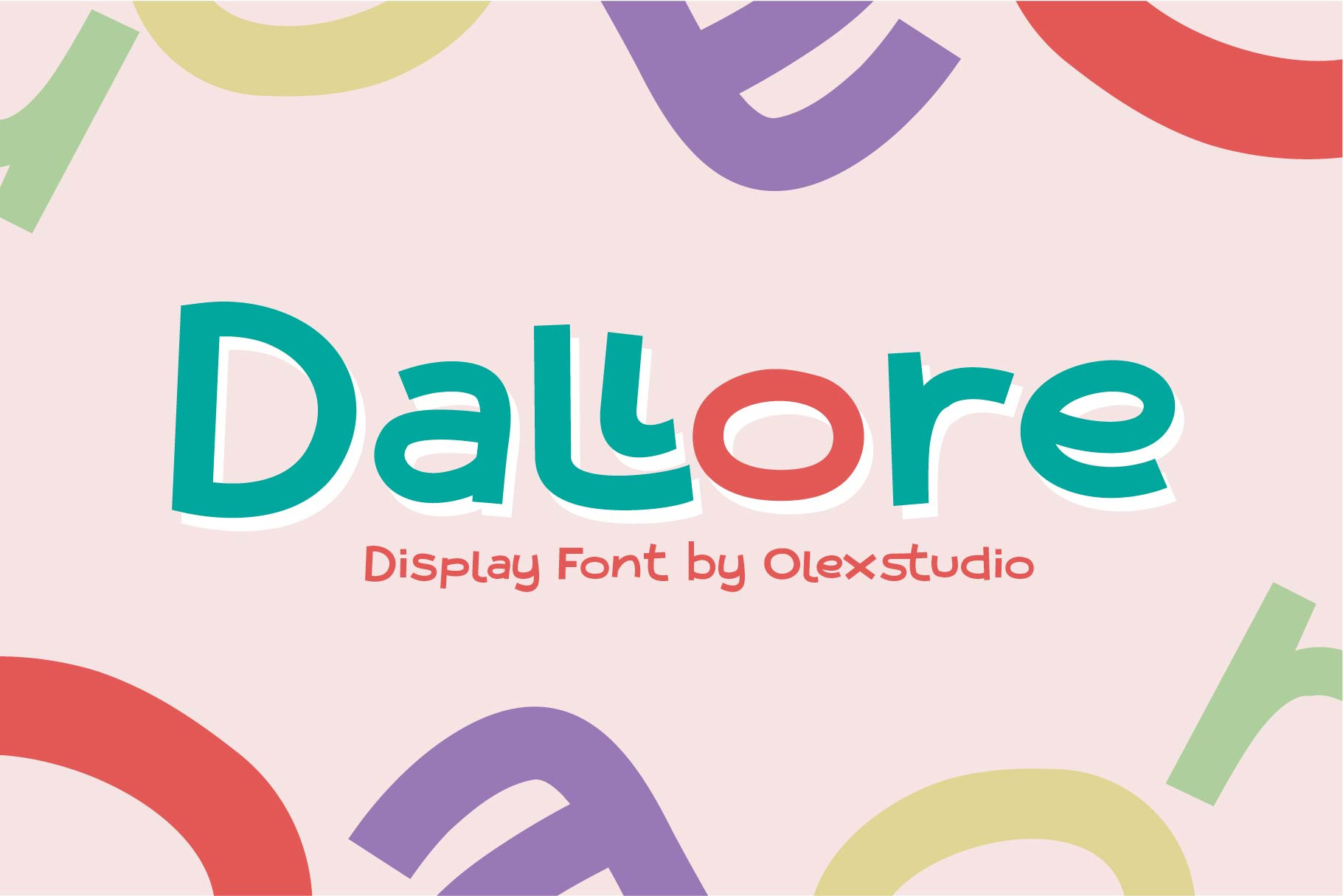
Dallore - Display Font will look gorgeous on all your designs, invitation, poster design, book design, branding materials, logo's, and all project design other.
Dallore - Display Font character is a Uppercase, Lowercase, includes numbers, punctuation, ligatures and international glyphs. You will receive OTF, TTF files & WEBFONT.